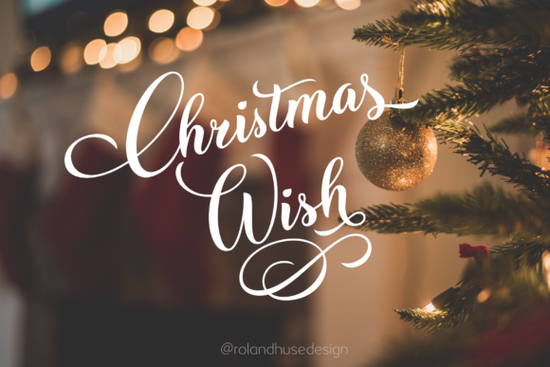
If you are looking for a reliable script that pairs well with winter themes, the Christmas Wish Font delivers exactly what you need without the usual formatting headaches. This cursive brush typeface comes in two distinct weights: a refined thin monoline version for delicate lettering, and a thicker brush calligraphic style that carries real visual weight. Both weights include generous alternates and decorative swashes that instantly lift seasonal cards, mugs, and social media graphics. Whether you run a print-on-demand shop or simply want to add a personal touch to homemade gifts, having this file in your library saves hours of manual tracing.
How does this brush script handle different project scales?
Large-scale prints like banners and tote bags benefit from the heavier brush weight, which maintains legibility even when scaled up beyond twelve inches. For smaller applications such as embroidery hoops, tea tags, or smartphone wallpapers, the thin monoline variant keeps details crisp. The included ligatures connect smoothly, so you rarely need to adjust kerning manually. When designing layouts, try placing the swash-heavy initials at the top left to guide the viewer’s eye naturally across your composition. Small business owners often notice higher engagement when they reserve ample breathing room around the letterforms, preventing visual fatigue on crowded packaging or promotional posters.
What adjustments improve readability in busy compositions?
Script lettering loses impact when placed against cluttered backgrounds or competing textures. To maintain clarity, pair the calligraphy with solid colors or subtle watercolor washes rather than busy photographic prints. Leave at least eight percent negative space around the outermost curves, especially when using the extended terminal swashes. Adding a drop shadow or soft inner glow helps separate overlapping strokes without overwhelming the original design. Test your layout at actual print size early in the process. For projects requiring tighter spacing, tools like Moon Child Font offer more compact structures, while elegant displays like Bella Bellia Font provide refined contrast for luxury branding.